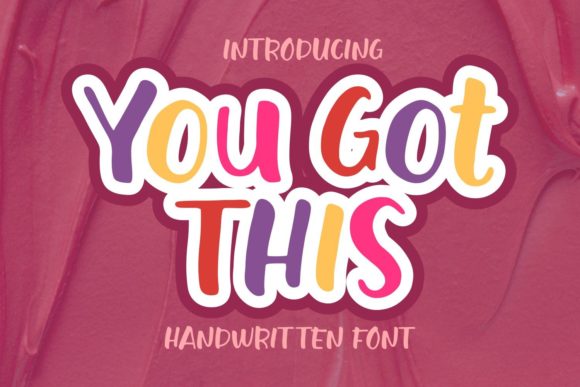
Venture into the realm of creativity with You Got This, a font family that embodies the essence of handwritten artistry. Let your words dance with grace and charm, leaving an unforgettable mark on your audience.
Unleash the power of expression with You Got This, a script font that transforms your words into captivating works of art. Whether you're crafting heartfelt letters, designing stunning social media posts, or creating unique logos that leave a lasting impression, this font has the versatility to elevate your projects to new heights of creativity.
Imagine your Instagram feed adorned with the elegance of handwritten captions or your DIY projects infused with a personal touch. The thick, flowing lines of You Got This effortlessly add a touch of warmth and authenticity to every design, making it the perfect choice for those seeking to evoke a sense of genuine connection with their audience.
Explore the boundless possibilities of You Got This, a font that goes beyond mere aesthetics. With its ability to evoke emotions and create a lasting impact, it becomes more than just a visual element but a powerful tool for storytelling and self-expression. Embrace the beauty of the handwritten word and let You Got This transform your creative visions into tangible masterpieces.
Embrace the boundless potential of You Got This, the font that's as unique as your creativity. Its thick, flowing lines create captivating handwritten designs that add a touch of warmth and authenticity to any project. Whether you're crafting heartfelt letters, designing engaging social media posts, or creating stunning logos, You Got This has the versatility to elevate your projects and leave a lasting impression.
With You Got This, you'll discover a font that breathes life into your words. Download it today and unleash the boundless possibilities of creativity!